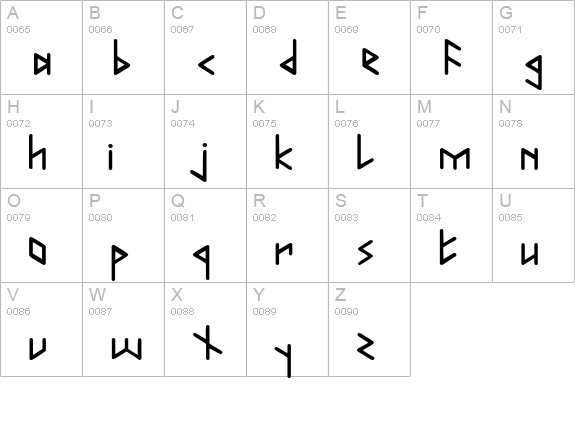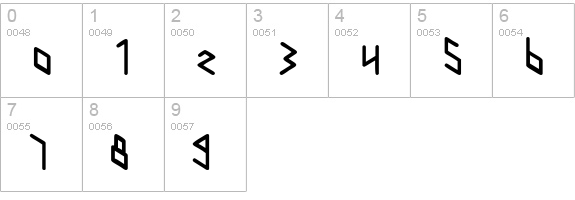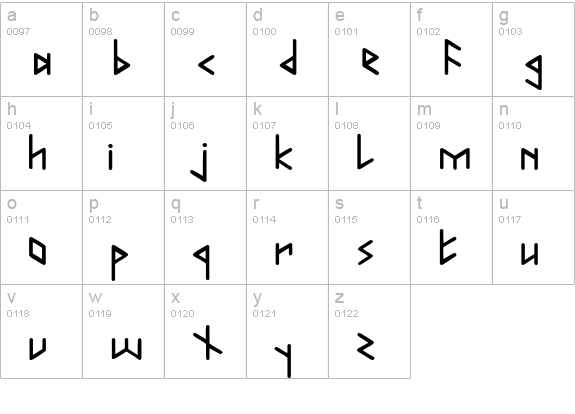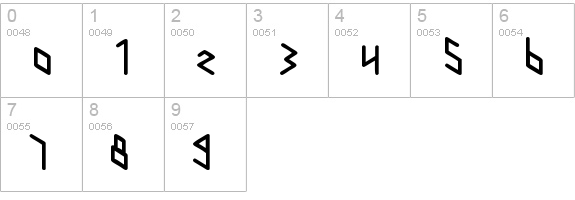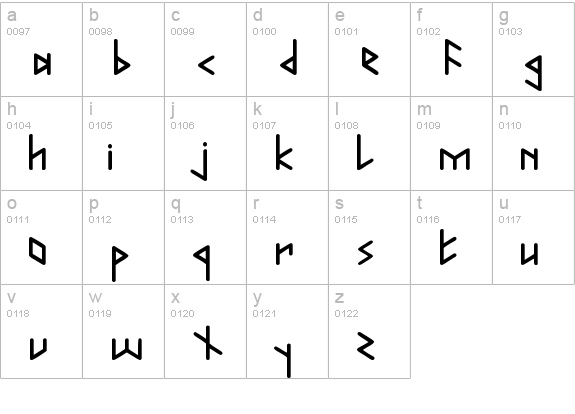
Introducing Runform, a sleek and modern typeface that exudes sophistication and elegance. With its clean lines and contemporary design, Runform is the perfect choice for a wide range of projects, from branding and advertising to editorial and web design. This versatile font offers a perfect balance of style and readability, making it ideal for both display and text use. What sets Runform apart is not only its stunning aesthetic appeal but also its accessibility. This exceptional font is available for free download at FontsMarket.com, allowing designers and creatives to easily incorporate it into their work without any barriers. Whether you're looking to elevate your designs or simply add a touch of sophistication, Runform is the perfect choice. Download Runform today and unleash your creativity with this exquisite typeface.